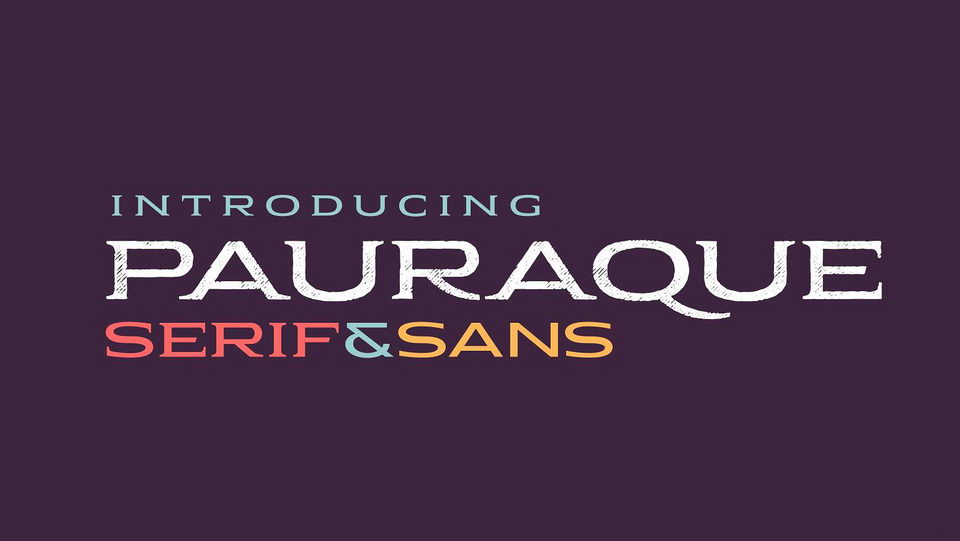
Pauraque Serif Font
Pauraque Serif is a vintage bold and wide display font. It’s experimental, and at the same time it’s easy on the eyes, retaining both a classic elegant look and a modern geometric construction in a font you haven’t seen before. This makes it extremely usable in many kind of projects. Full version includes Serif & Sans that is the perfect wide and legible companion. Each font has clean and rough versions. Use it for titles, logos and short text or pair it with your favorite script font.